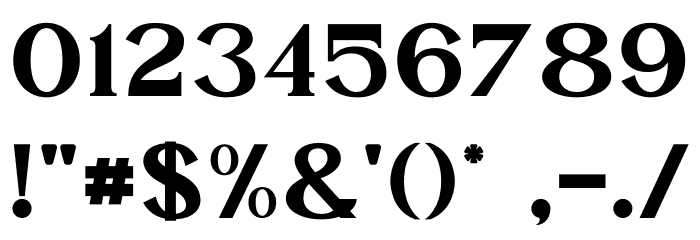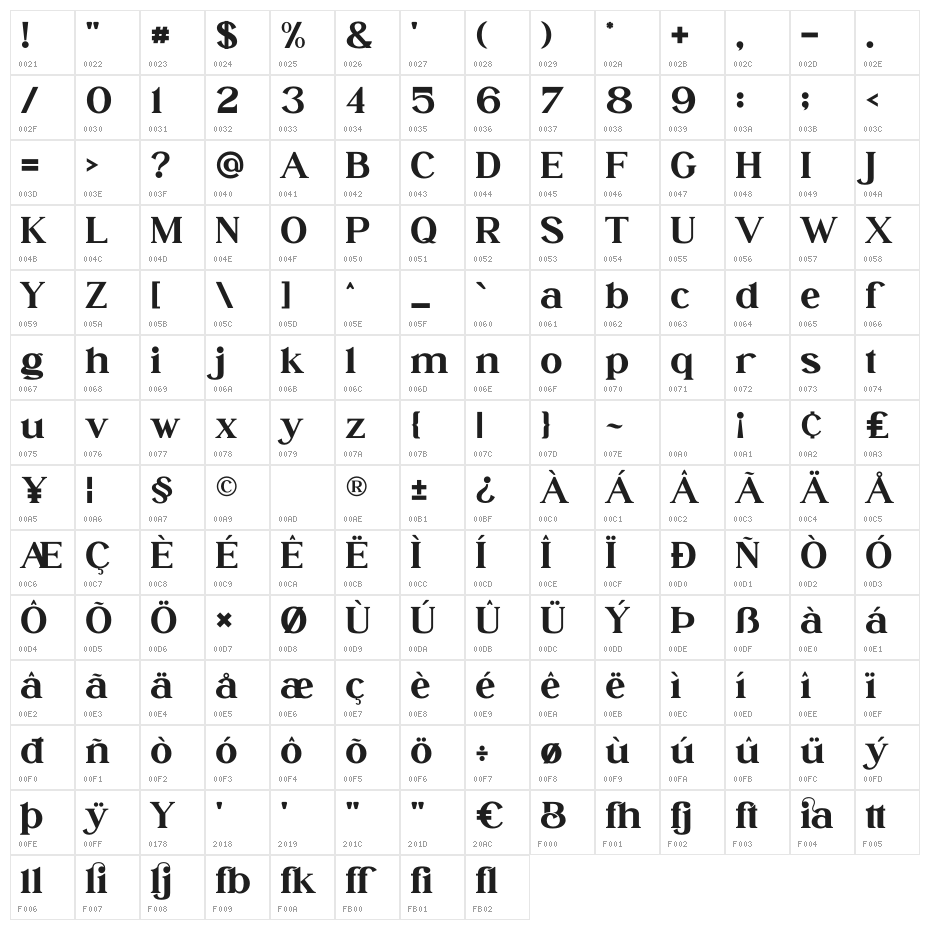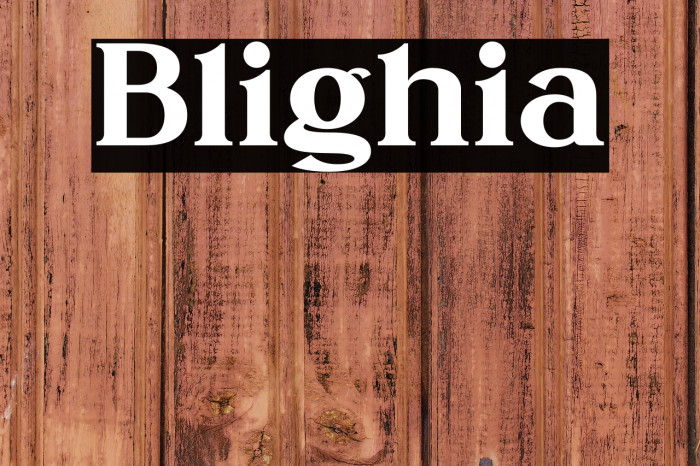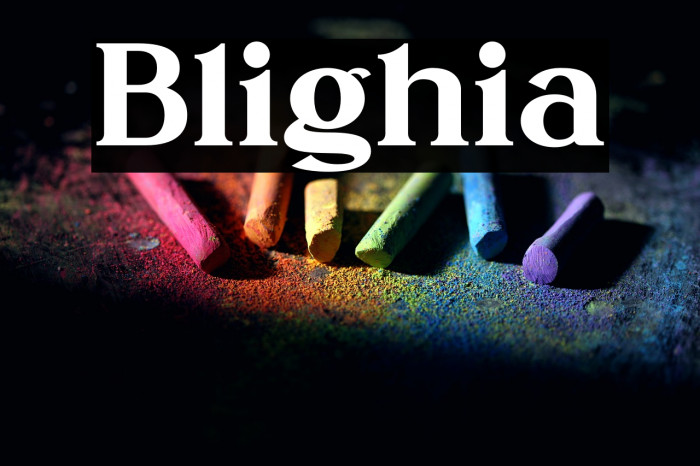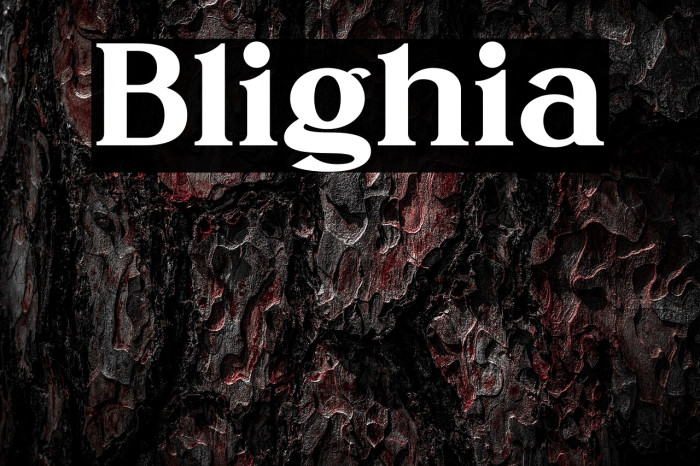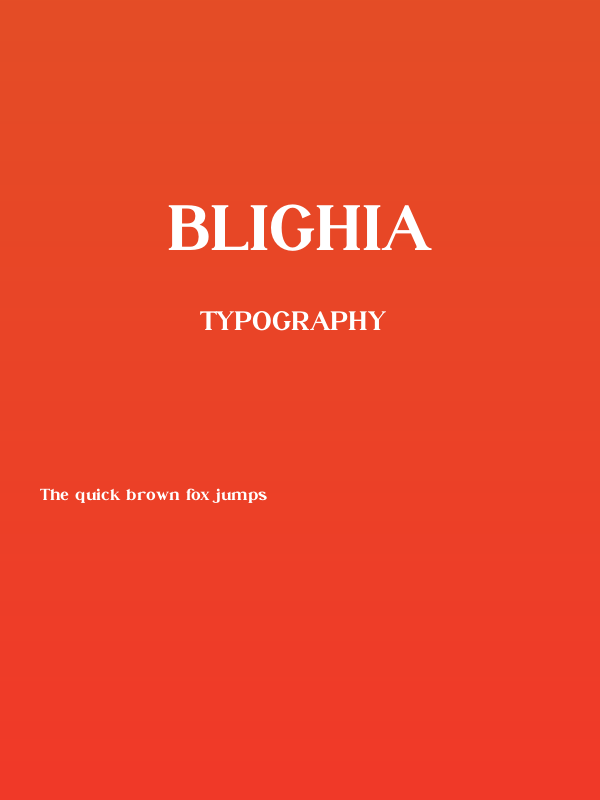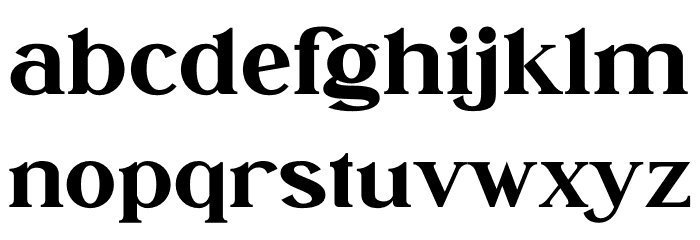
Blighia Font
Blighia Description
This font exhibits a classic serif style with strong, bold strokes and high contrast between thick and thin lines. The serifs are pronounced and add a touch of elegance and tradition to the overall appearance. The uppercase letters are stately and commanding, while the lowercase letters maintain a balanced and readable form. The numerals are clear and consistent with the overall design, making them suitable for both formal and informal contexts. Special characters are well-integrated, maintaining the font's cohesive style. This font is ideal for projects that require a touch of sophistication and authority.